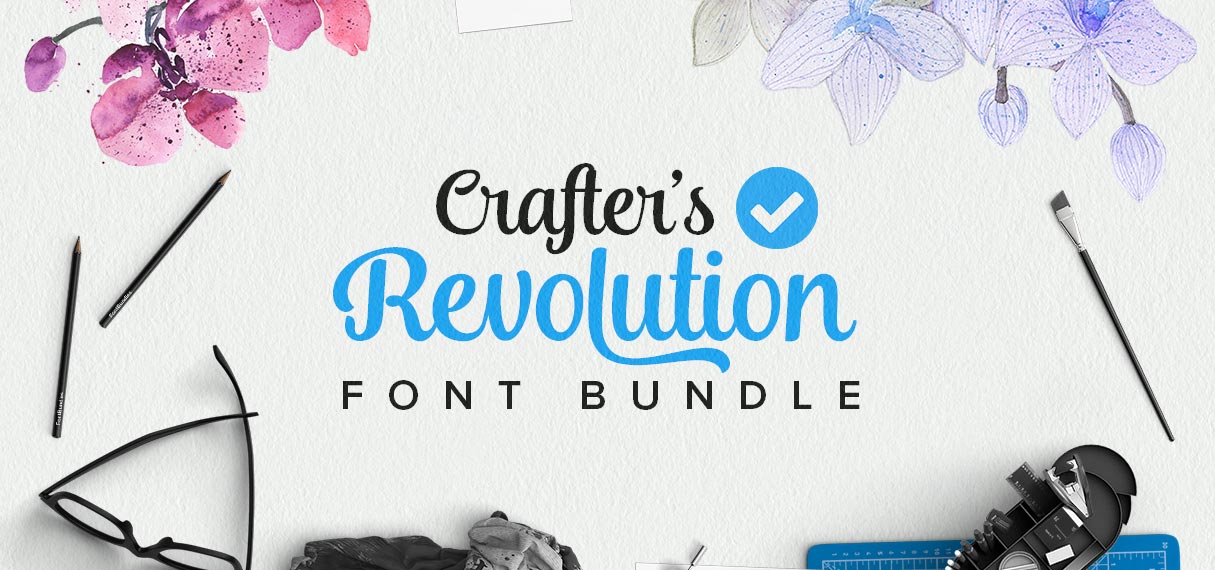
Whether you like it or not, maintaining a a font library that stays useful at any time is part of a graphic designer’s work nowadays. There are tons of free fonts out there that will prove useful, even for professional work. However, the easiest way to keep up-to-date and build the perfect font collection is to purchase font bundles like the Crafter’s Revolution bundle.